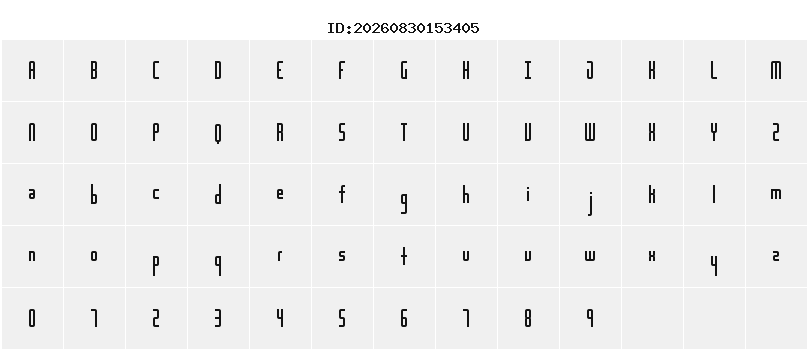
• Font Name: The Distance
• Full Font Name: The Distance Regular
• Designer: GeronimoFonts
• Description: ‚ÄúThe Distance‚Äù was built with FontStruct
About The Distance.ttf
The Distance.ttf is a modern, elegant sans-serif font designed for ultimate readability and visual harmony. Perfect for branding, headlines, web design, and print materials.